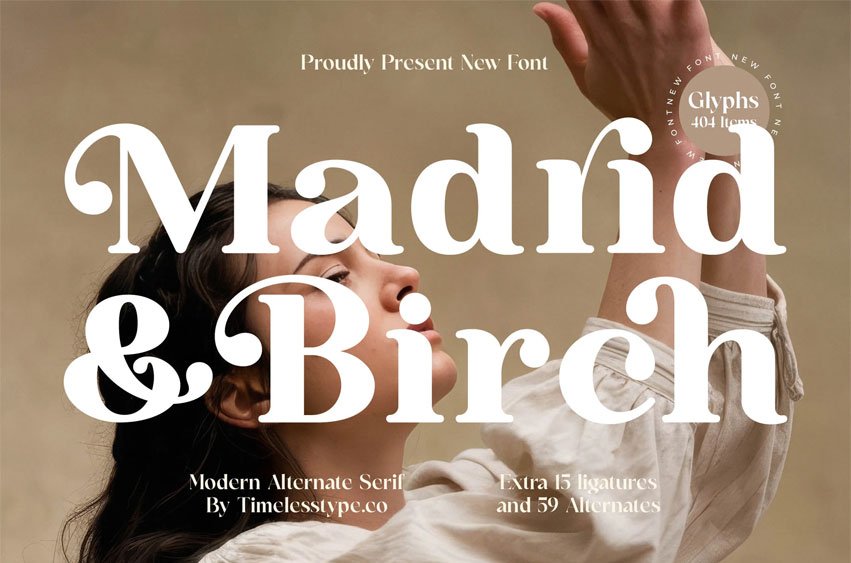
Madrid & Birch Font is a modern alternate serif typeface crafted with bold elegance, sculpted curves, and expressive swashes that elevate any design into a refined editorial statement. Its high-contrast strokes and artistic serif shapes create a timeless visual rhythm, supported by 404 glyphs, 15 ligatures, and 59 alternates that give designers full creative flexibility.
Perfect for luxury branding, magazine layouts, boutique packaging, wedding identities, and high-end social media aesthetics, Madrid & Birch delivers a polished, sophisticated, and iconic typographic presence in every composition.